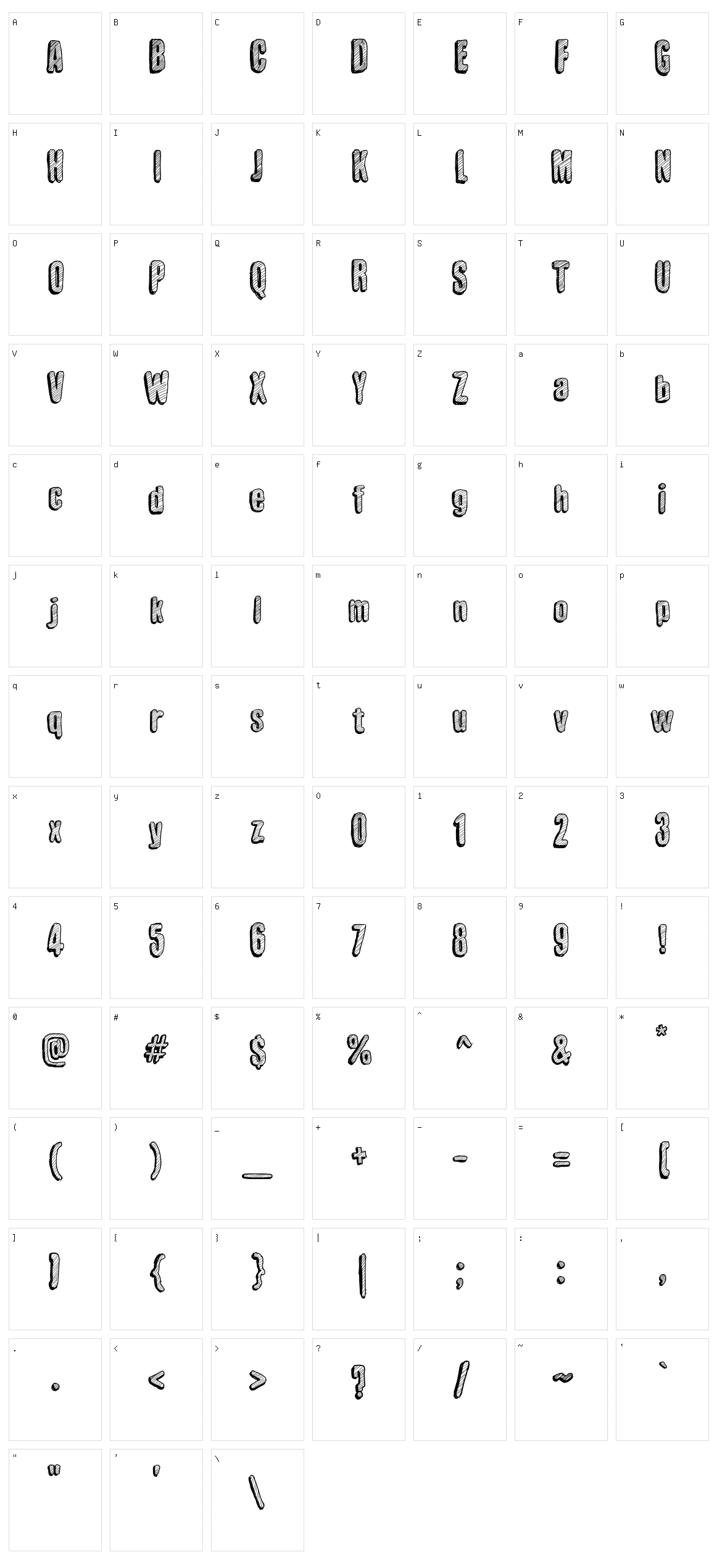
The free font Sketch Wall is carefully designed by Galdino Otten Fonts, showcasing a thoughtful balance of creativity and usability and falls under the Cartoon font style. When you download the ZIP file, it contains only 1001.99 KB of font files, making it lightweight and quick to download. Please review the license details below to understand permitted usage and distribution rights. If license information is not available, we recommend using this font for personal projects only or contacting the author directly for commercial usage permissions.